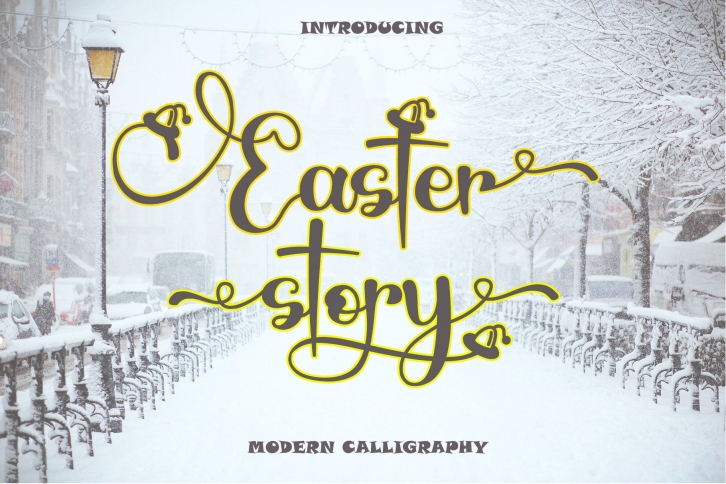
Easter Story is a gorgeous font that was realeased on February 4, 2021. The font can be used in many style contexts and design environments. Perfect for invitations, magazines, websites, logos, and more! It was designed by Letterafa Studio and the file size is 13.65 MB. Thanks for checking out this font!